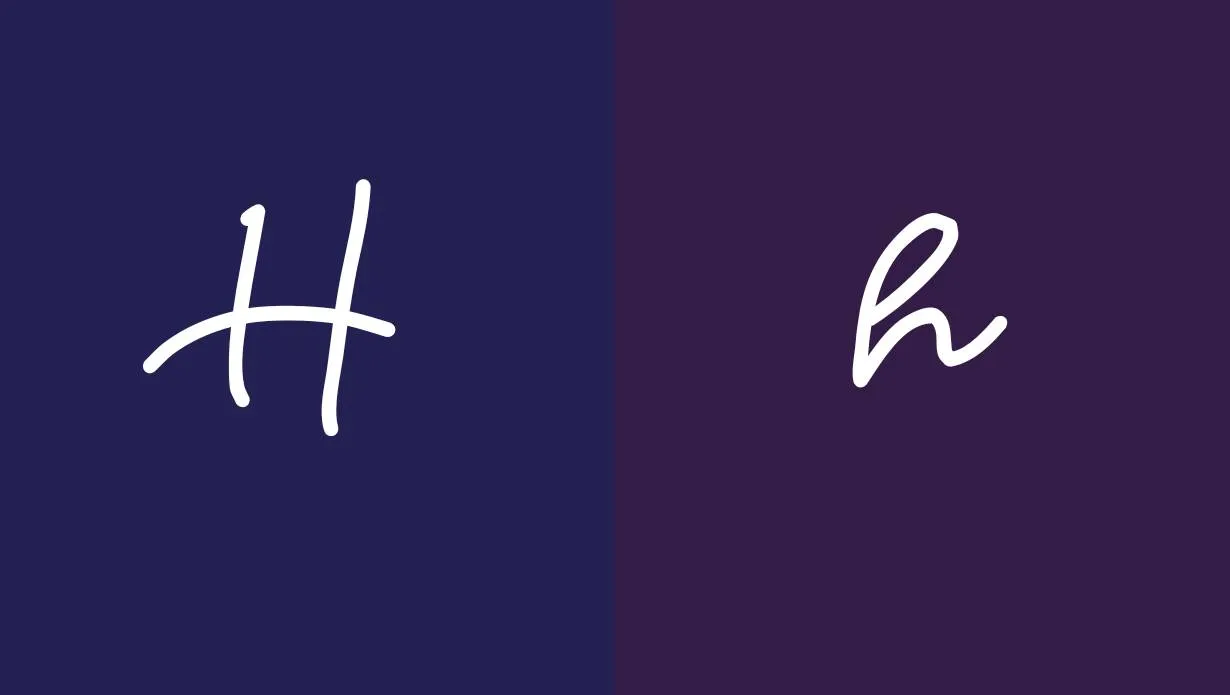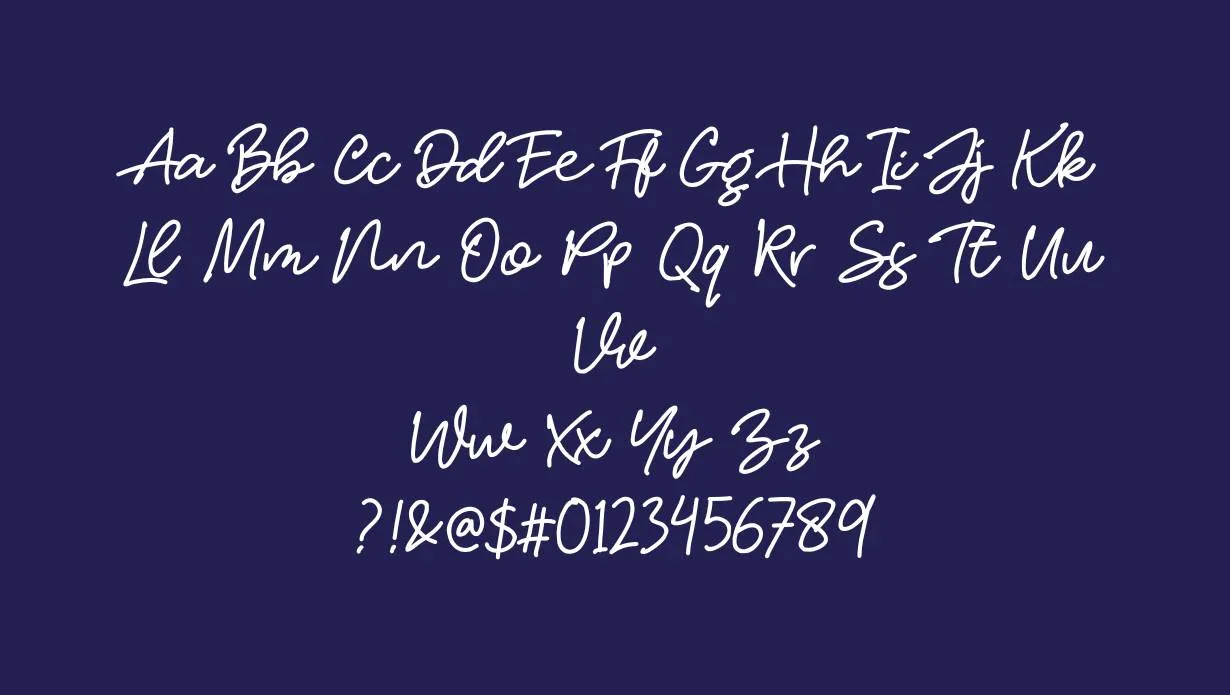
The Hello Stranger Font is part of the handwritten font family designed by Saridezra, featuring ligatures, stylistic alternates, contextual alternates, and swashes.
This typeface has a natural, casual, and eye-catching presence that can give an elegant and gorgeous touch to any content; it is available in TTF and OTF formats.
Hello Stranger Font Family